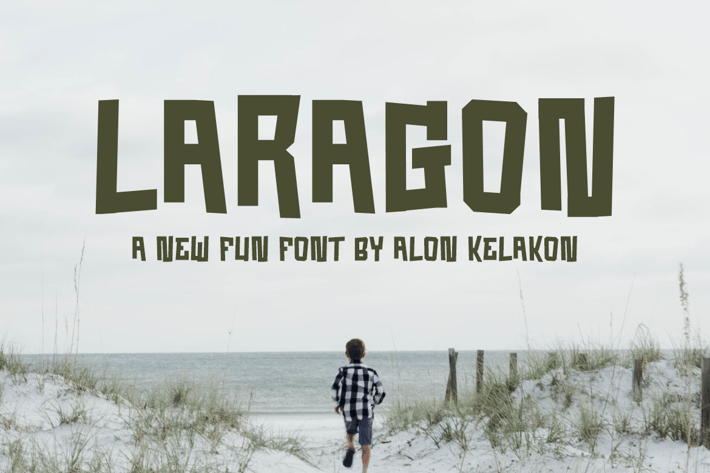
Laragon - Chalk & Funny Font
Laragon Font is unique . Ready to use for your design like labeling, movie sceen, poster, movie title, gigs, album covers, logos, and much more.